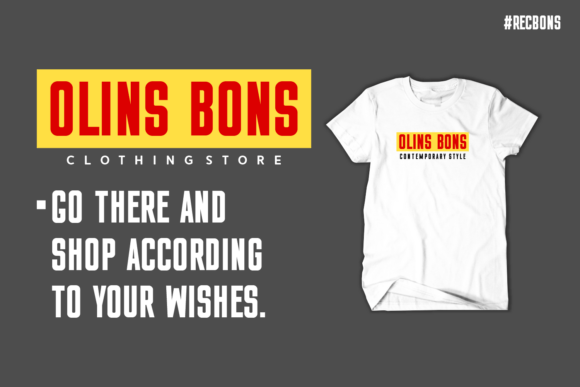
Introduction to Recbons Font
As a designer, there’s nothing quite like the thrill of starting a new project. The blank canvas, the endless possibilities – it’s a blank slate just waiting for your creativity to shine through. But, let’s be honest, sometimes that blank slate can feel a bit daunting. Where do you even begin? That’s where a high-quality font like Recbons Font comes in – a game-changing design resource that can elevate your creative project to new heights.
With its sleek, modern sans-serif design, Recbons Font is the perfect choice for any designer looking to add a touch of sophistication and clarity to their work. Whether you’re working on a branding project, creating digital content, or producing print materials, this versatile font is sure to impress. And, with its transparent background, you can rest assured that your design will shine through – every time.
Key Features of Recbons Font
- High-quality design for creative projects with a transparent background, making it ideal for various design resources.
- Includes a wide range of characters, including uppercase and lowercase letters, numbers, and special characters.
- Features a unique and creative design, perfect for designers looking for a distinctive font for their projects.
- Supports various languages, including English, Spanish, French, and more.
- Comes in a single size, with a resolution of 300 DPI, making it suitable for both web and print design.
- Perfect for designers working on various creative projects, from logos and branding to digital art and graphics.
Honest Review: Recbons Font
As a designer, I’m always on the lookout for high-quality design resources to elevate my creative projects. Recbons Font has caught my attention with its unique and playful style. I decided to give it a try and see if it lives up to my expectations.
- Unique and creative design style
- High-quality font files for seamless use in various projects
- Transparent background option for easy use with images or videos
- Only available in one weight, which may limit its versatility in certain projects
- No bold or italic variations, which may be a drawback for some designers
Overall, I’m impressed with Recbons Font’s potential to add a touch of creativity to my design projects. While it may have some limitations, its unique style and high-quality font files make it a valuable addition to any designer’s toolkit. With a bit of imagination, Recbons Font can help bring a project to life in a way that’s both engaging and memorable.
Introduction to Recbons Font
Recbons Font is a versatile, high-quality design resource ideal for creative projects requiring a unique touch. This free download offers a transparent background, making it easy to integrate into various design tools.
Tips for Getting the Most Out of Recbons Font
Experiment with different font sizes, colors, and styles to achieve the desired effect. Use Recbons Font in conjunction with other design elements to create a visually appealing composition. Consider pairing Recbons Font with a high-quality image or graphic to add depth and interest to your design.
Recbons Font is ideal for a variety of creative projects, including infographics, brochures, posters, and social media graphics. Its unique design and transparent background make it a versatile design resource for any project requiring a touch of elegance and sophistication.
Alternatives to Recbons Font
The Great Vibes Font is a high-quality, handwritten font perfect for creative projects that require a touch of elegance. It’s ideal for design resources such as invitations, posters, and social media graphics. Great Vibes Font features a transparent background, making it easy to overlay on any design. While it lacks the bold, distressed look of Recbons Font, it offers a more refined and sophisticated alternative.
Can I use the Recbons Font for designs that require a transparent background?
Yes, the Recbons Font is designed to work seamlessly with transparent backgrounds, making it an ideal choice for designers who need to create visually appealing and creative projects with a clear background.
What is the recommended resolution for printing the Recbons Font?
For optimal print results, we recommend using a resolution of at least 300 DPI (dots per inch) for the Recbons Font. This will ensure that the high-quality design is rendered accurately and clearly in print.